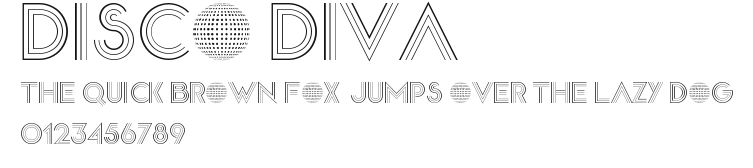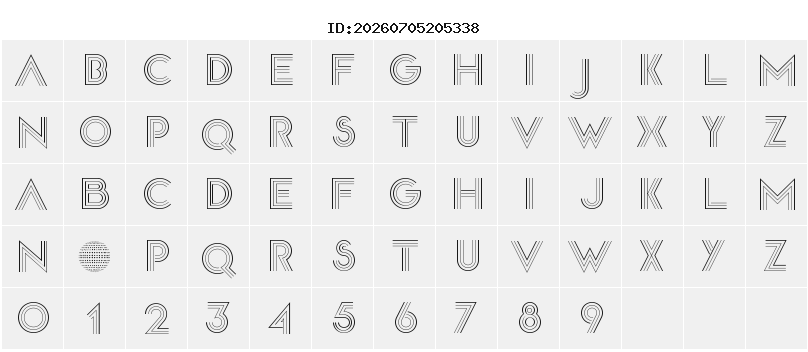
• Font Name: Disco Diva
• Full Font Name: Disco Diva
About Disco Diva.ttf
Disco Diva.ttf is a modern, elegant sans-serif font designed for ultimate readability and visual harmony. Perfect for branding, headlines, web design, and print materials.